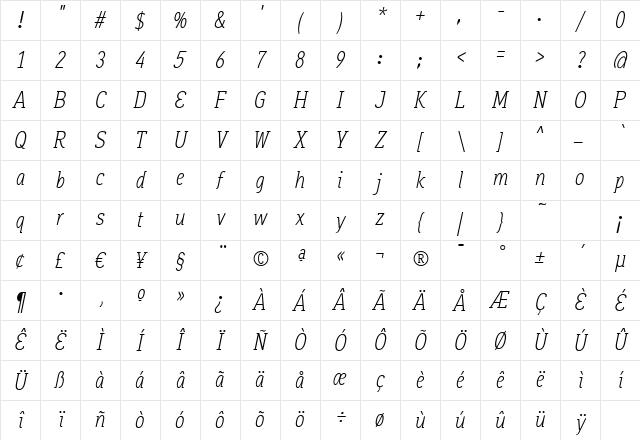
Aaux OfficeLight Italic Regular
Design Context for Aaux OfficeLight Italic
Aaux OfficeLight Italic is a composed and adaptable typeface that performs quietly and consistently across a wide range of design contexts. The slanted form adds forward momentum and visual energy. Its slender proportions lend an understated elegance to any composition.